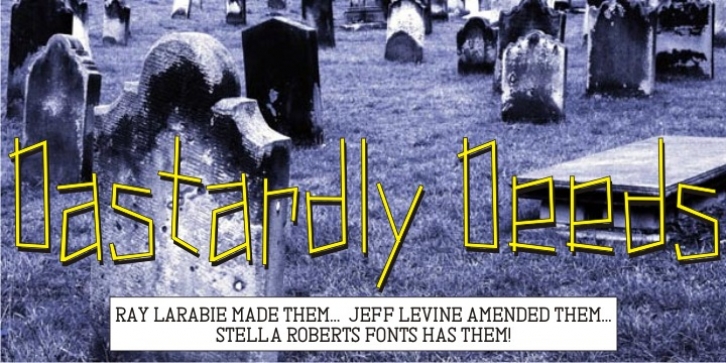
This design from Ray Larabie (and adapted by Jeff Levine) is so unusual. The lettering lends itself to messages of sinister intent or horror movie titles.